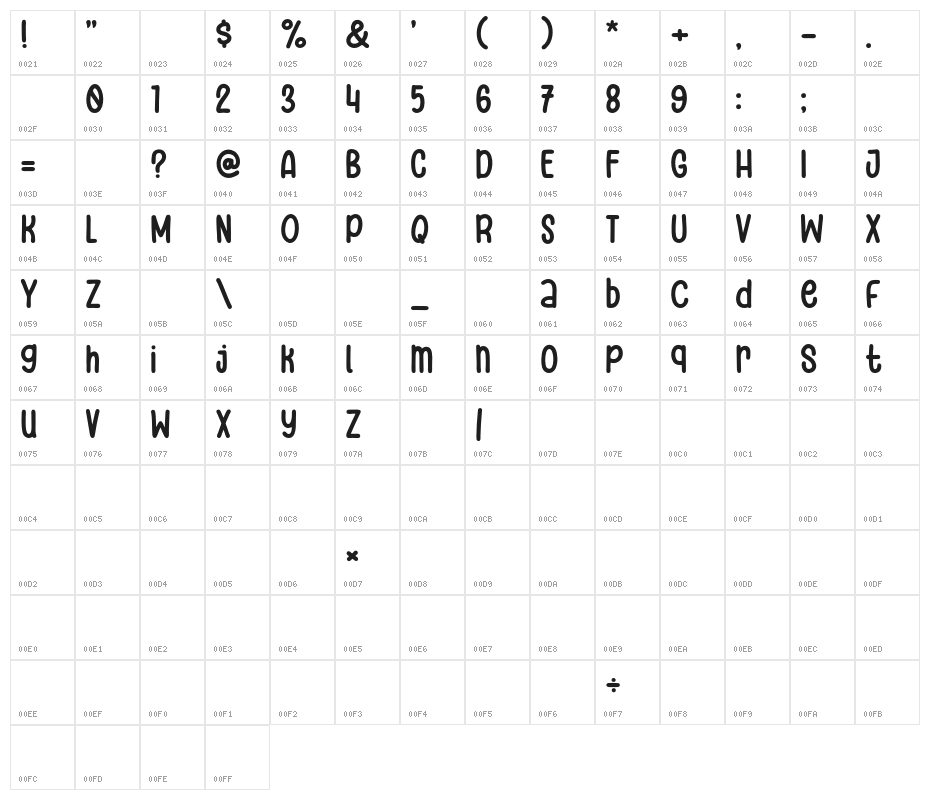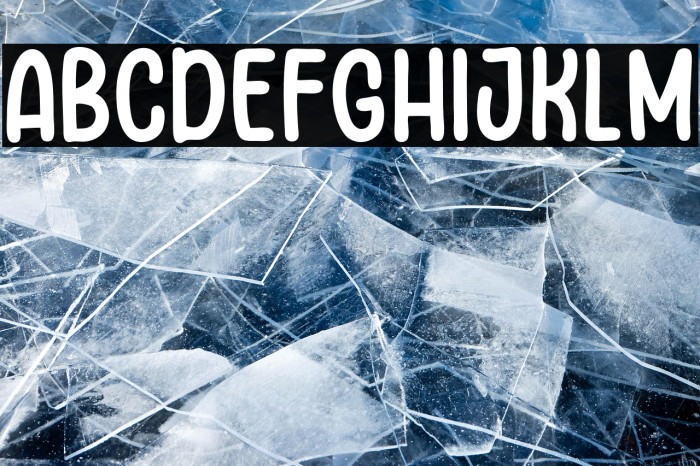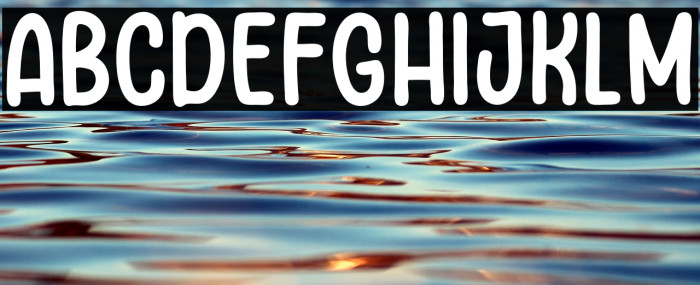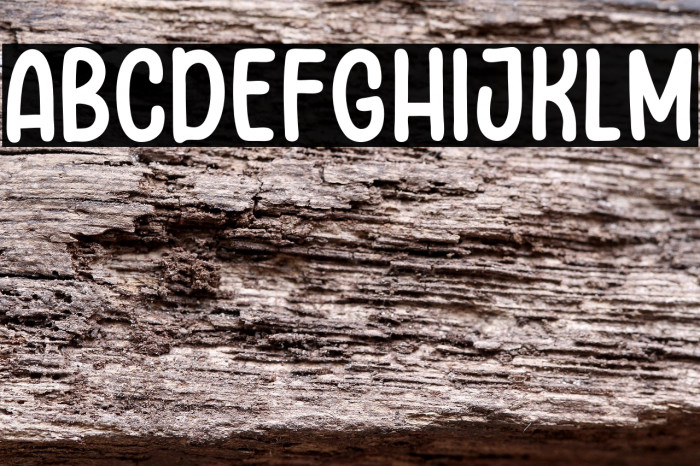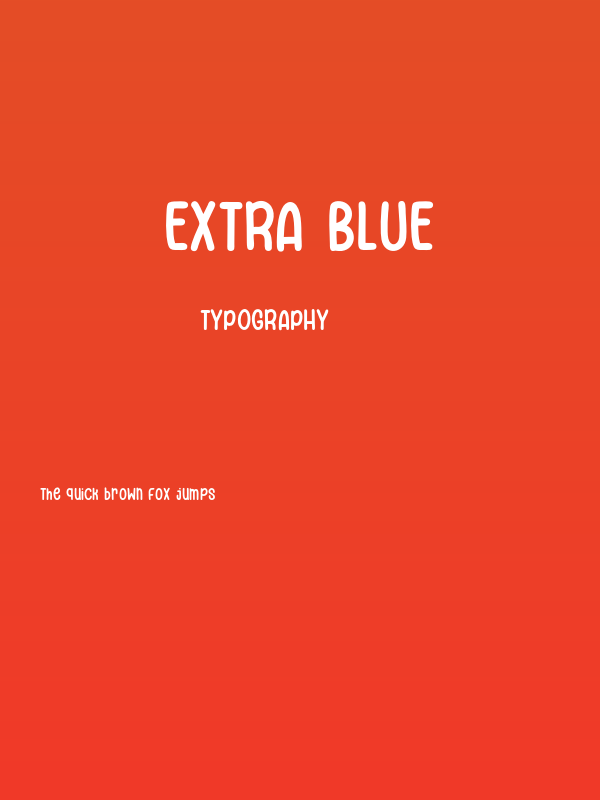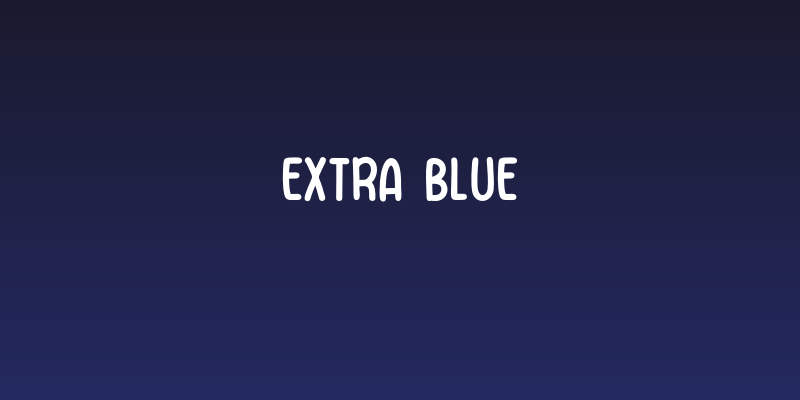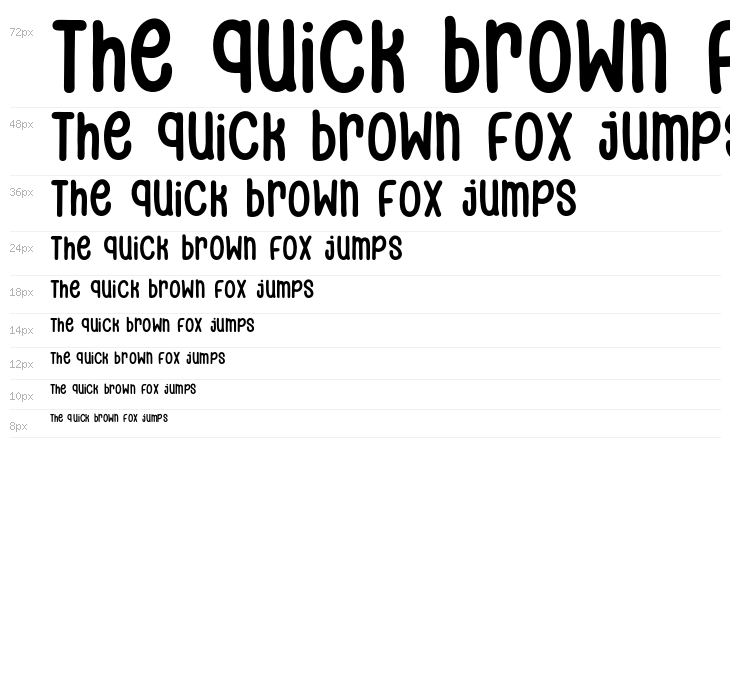
Extra Blue Font
Extra Blue Description
This font features a playful and bold style with rounded edges and a hand-drawn appearance. The letters are uniformly thick, giving it a consistent and cohesive look. The uppercase and lowercase letters maintain a similar width, enhancing readability. Numbers and special characters are designed to match the overall playful aesthetic, making it suitable for informal and creative projects. The font's unique style makes it stand out, while its rounded forms add a friendly and approachable feel.
| Overall Style | Playful |
| Use Case | Logos, Headlines, Posters |
| Proposed Projects | Ideal for children's books, playful branding, posters, and creative invitations. |